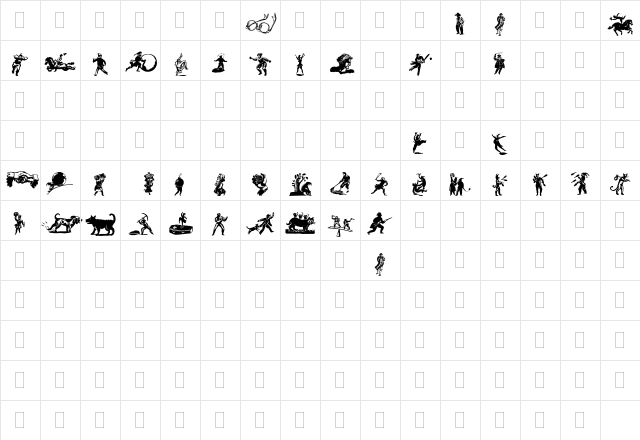
DF Primitives One Regular
Design Context for DF Primitives One Typeface
DF Primitives One is a composed and adaptable typeface that performs quietly and consistently across a wide range of design contexts.